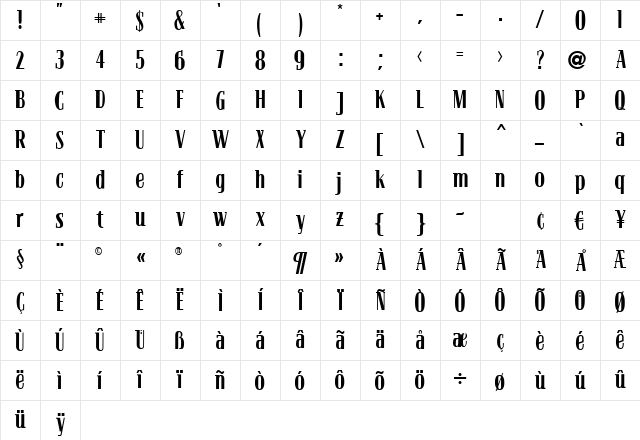
Bloc Regular Free Font
Bloc Regular
Design Context for Bloc
Bloc is a composed and adaptable typeface that performs quietly and consistently across a wide range of design contexts.